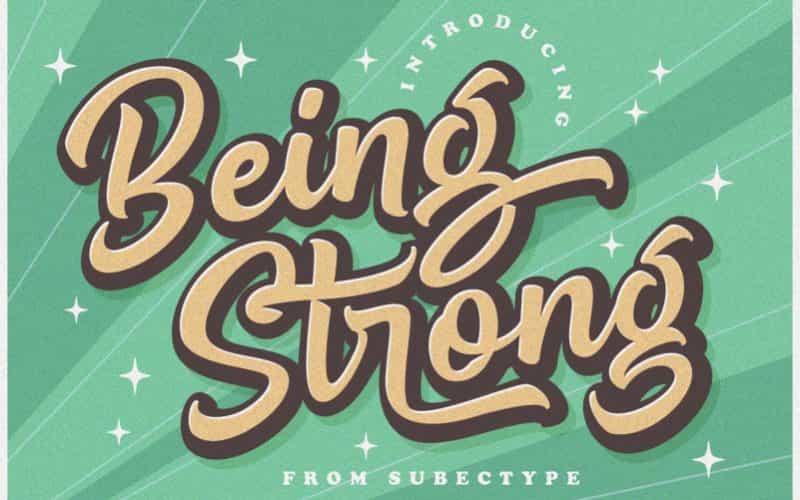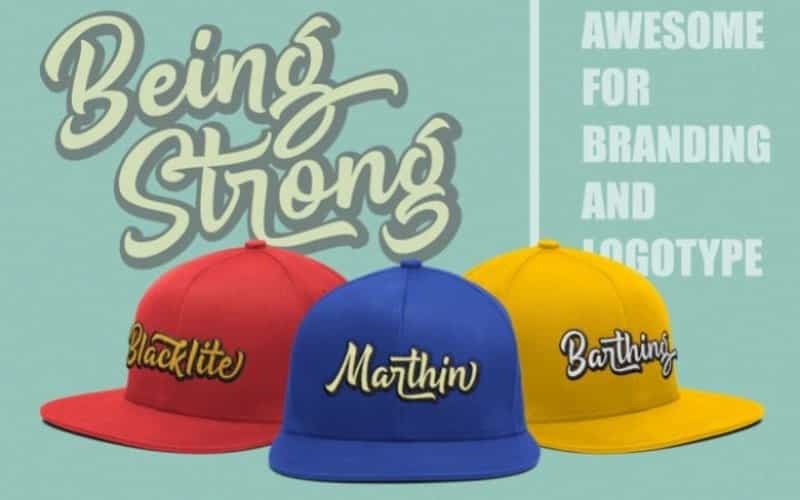
Being Strong Handwritten Font
A new Layered bold script is being added and it is call Being Strong . The following design is based on handlettering, bold script logotype and retro style, the design is named as Being Strong. Being Strong was created with the open type features and multilingual accents suitable for logotype, poster, badge, book cover, t-shirt design, packaging, and more.